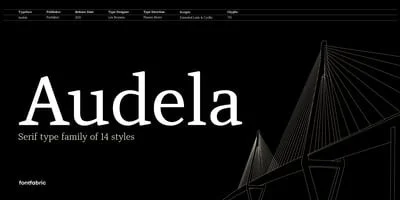
Audela Font
Audela Font excels in diverse design applications including elegant wedding invitations, luxury brand packaging, high-end restaurant menus, boutique fashion labels, premium cosmetic branding, sophisticated book covers, artistic event posters, and upscale retail signage. This refined typeface brings an air of sophistication to both traditional print materials and modern digital designs.
What makes Audela Font exciting is its perfect balance of classic elegance and contemporary flair. The graceful letterforms feature distinctive curves and refined strokes that create a sense of luxury and exclusivity. Its sophisticated character design incorporates subtle flourishes and carefully crafted details that enhance readability while maintaining an unmistakably premium aesthetic that captures attention instantly.
The Audela Font family encompasses multiple stylistic variations including regular, italic, light, and bold weights. Each variant maintains the signature elegance while offering different levels of visual impact. The family also includes decorative alternates and ligatures that provide designers with enhanced creative flexibility for custom lettering solutions and unique typographic treatments.
Creative professionals consistently choose Audela Font for projects demanding refined typography and timeless appeal. Whether developing luxury brand identities, crafting editorial designs, or creating premium packaging solutions, this font delivers exceptional results across all mediums. Its versatile nature and impeccable craftsmanship make it an invaluable resource for designers seeking to elevate their work with sophisticated typography that resonates with discerning audiences and creates lasting impressions.